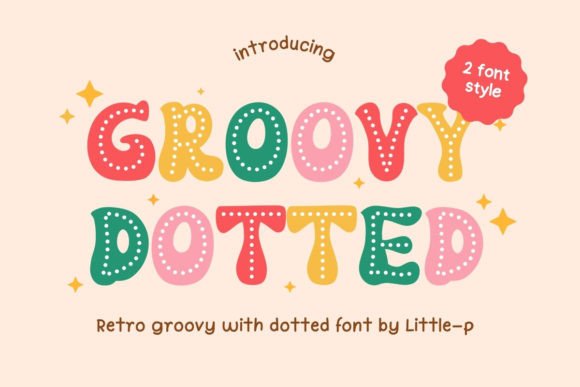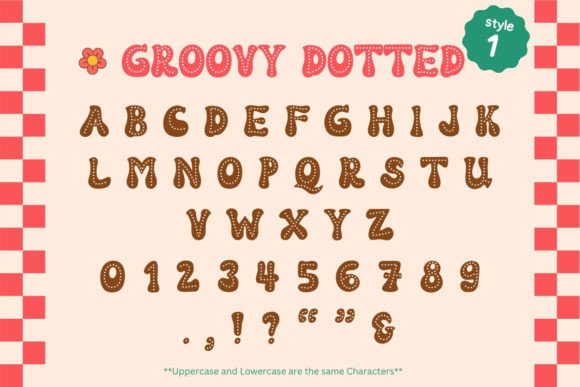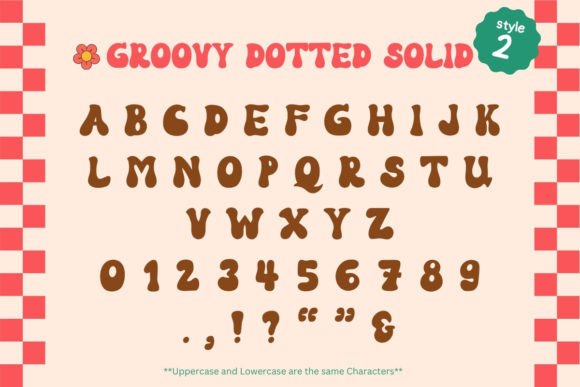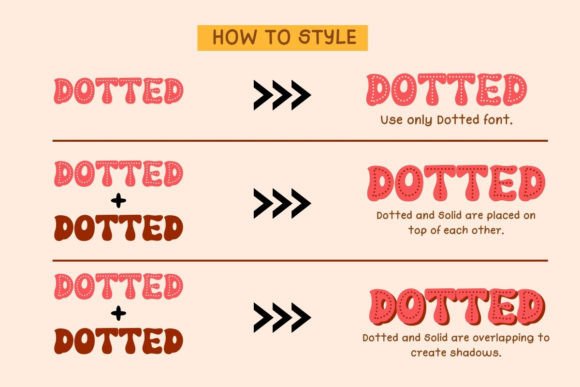
Groovy Dotted Font: A Playful Retro Display Font for Cricut & DIY!
About the Groovy Dotted Font
Explore the possibilities with Groovy Dotted Font, a font that offers both beauty and functionality. Introducing “Groovy Dotted” a retro groovy-style font combined with a playful dotted design, creating a unique and funny display font with a personalized vintage feel. Perfect for adding a touch of nostalgia to your T-shirts, branding, posters, custom DIY craft projects, quotes, personalized names, and more, “Groovy Dotted” delivers a fun and creative vibe to all your designs.
Its playful, retro style makes it ideal for headlines, short slogans, and branding projects aiming for a fun, vintage aesthetic. Think retro-themed restaurants, music festivals, or quirky apparel brands. However, its dotted design can hinder readability in body text or UI elements; avoid using it for lengthy paragraphs or website copy.
Groovy Dotted pairs well with clean sans-serif fonts like Open Sans for a balanced contrast, or a more geometric sans-serif like Futura for a modern twist. A classic serif like Garamond could add a touch of sophistication, providing a strong counterpoint to the font’s playful energy.
The overall personality is undeniably cheerful and nostalgic, making it a great choice for projects seeking a lighthearted and retro vibe. Avoid pairing it with overly serious or formal typefaces; its quirky nature demands a complementary, rather than conflicting, partner.
Groovy Dotted Font Usage Examples
Groovy Dotted Font Example